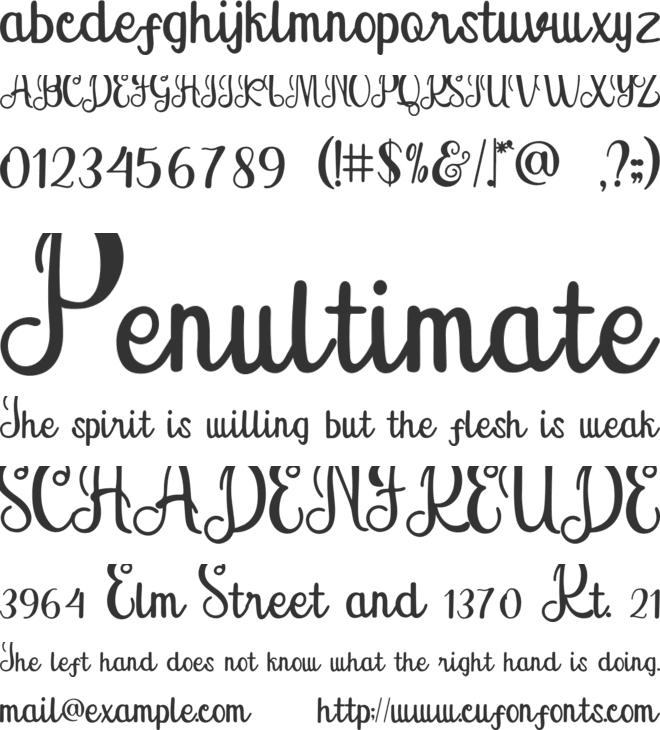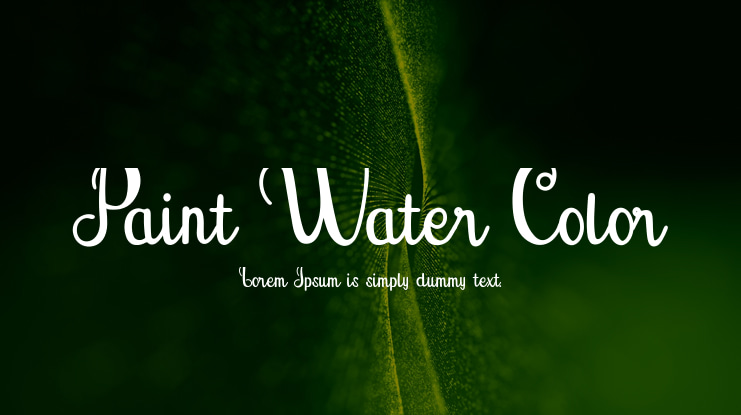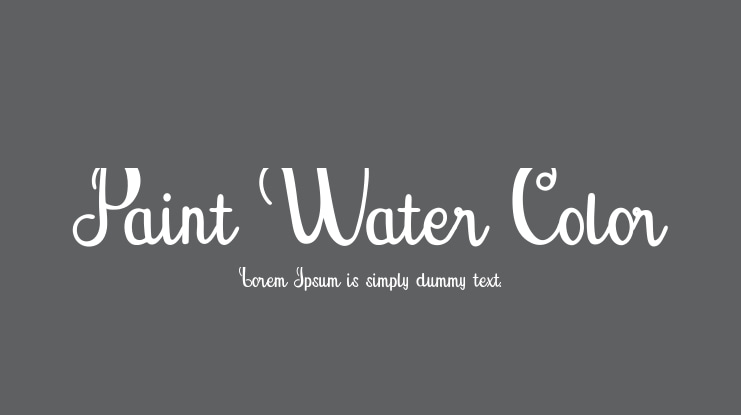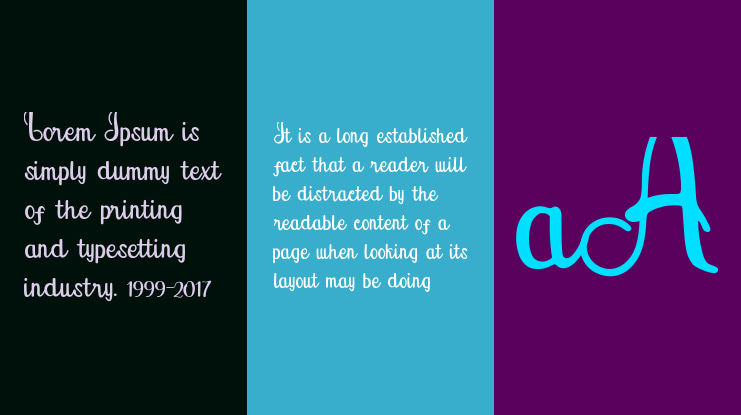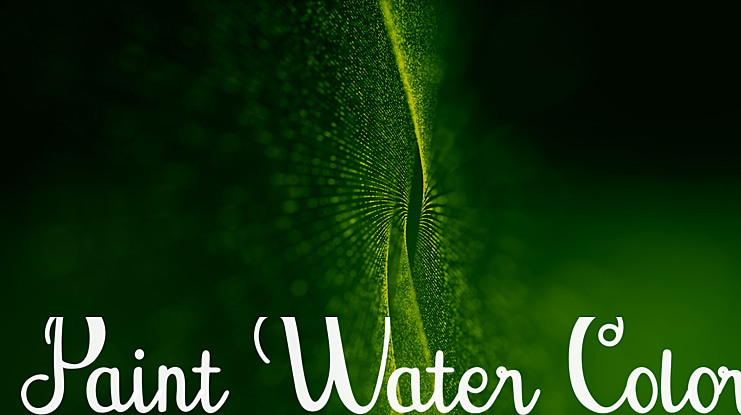
Paint Water Color Font
Paint Water Color is a chic, whimsical and well balanced script font. Warm, romantic and jolly, this font will turn each of your project ideas into real works of art. Have fun with this beautiful font and explore its endless variations.